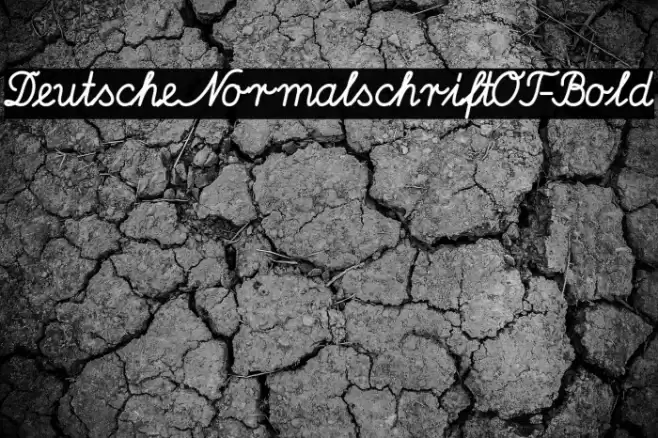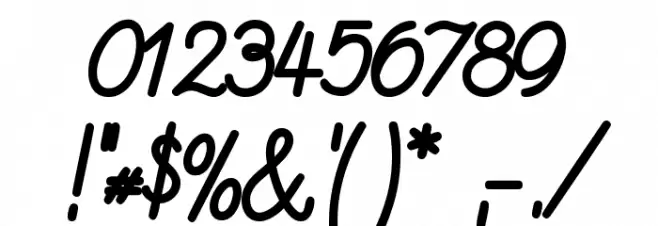
DeutscheNormalschriftOT-Bold Font
DeutscheNormalschriftOT-Bold Description
This font features a bold, cursive style with a flowing, handwritten appearance. The letters are interconnected, creating a seamless and elegant look. The uppercase characters maintain a consistent height, while the lowercase letters exhibit a slight slant, enhancing the script's fluidity. Numbers and special characters are designed to match the overall cursive theme, ensuring uniformity across all glyphs. The strokes are thick and consistent, providing a strong visual impact, suitable for decorative purposes.
A bold, cursive script font with interconnected letters and a flowing style from Uncategorized fonts.
- Proposed Projects: Ideal for wedding invitations, greeting cards, logos, and branding materials that require a personal touch.
- Character Spacing: Tight
- Use Case: Logos, Invitations, Decorative text